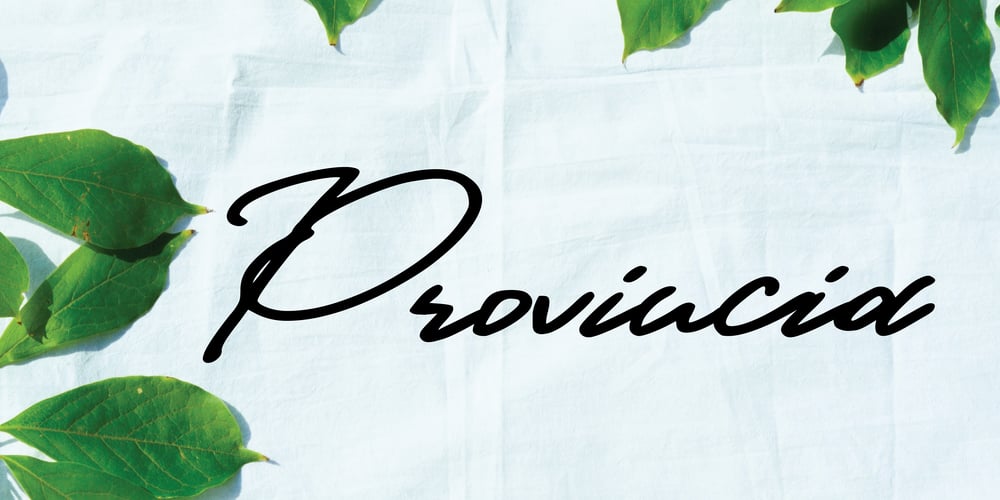
Provincia Font Family was designed by Mariyana and published by Goodigital13. Provincia contains 1 styles and family package options. Perfect for wall displays, wedding invitations, social media post logos, advertisements, product packaging, product designs, labels, photography, watermarks, invitations, quotes, stationery, and another project that requires taste handwriting.The mockups and images are for preview purposes only and not included in the download file